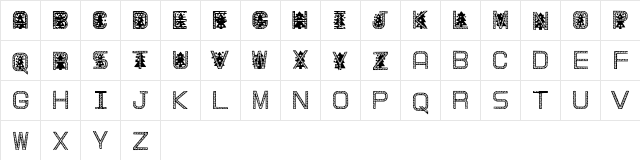
XmasTree Regular
Design Context for XmasTree Typeface
XmasTree is a composed and adaptable typeface that performs quietly and consistently across a wide range of design contexts.